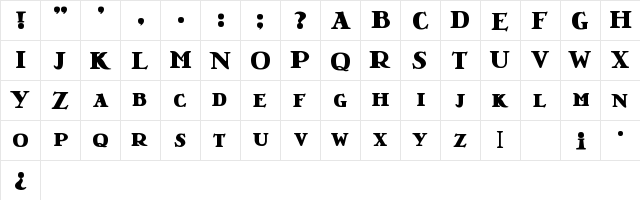
LRT Nutshell Library Black Regular
Design Context for LRT Nutshell Library Black Typeface
LRT Nutshell Library Black takes a measured approach to typography — its balanced proportions and neutral character make it a reliable workhorse for both digital and print work.